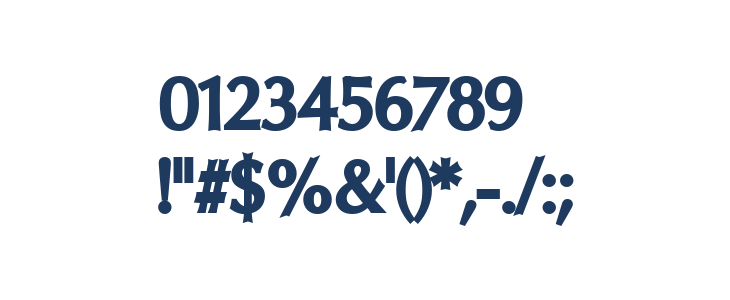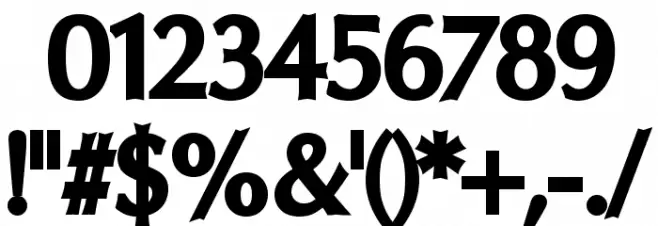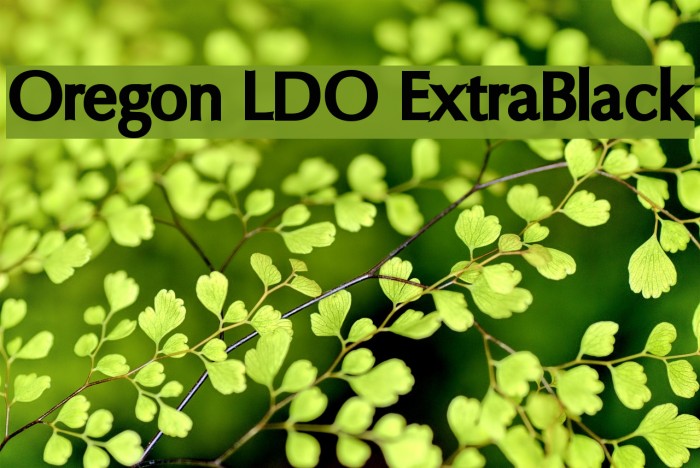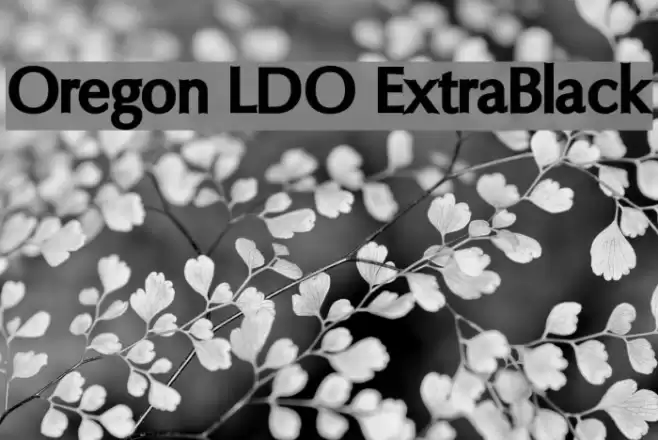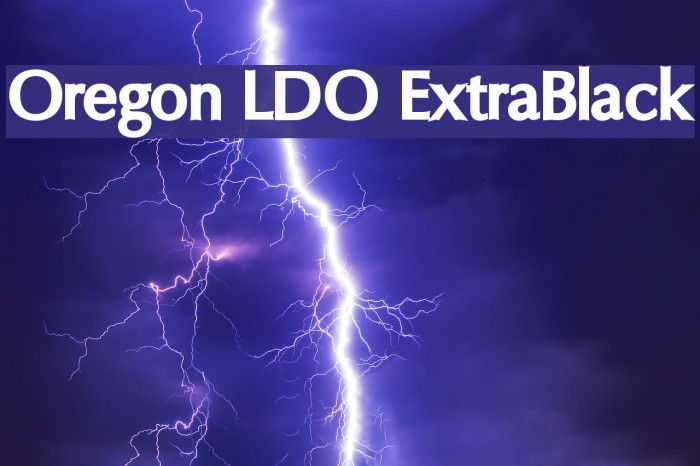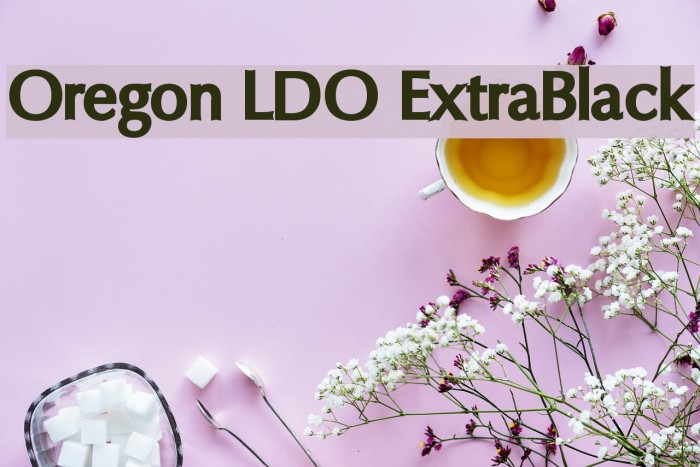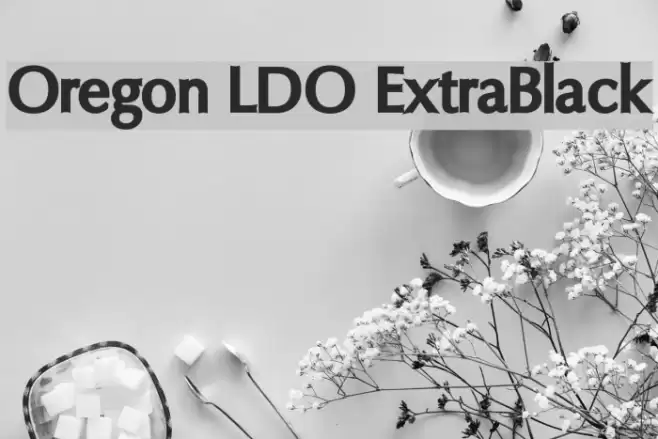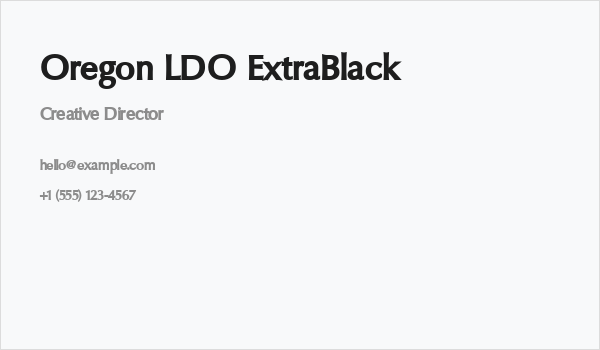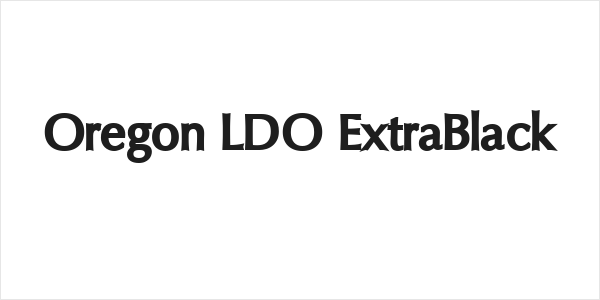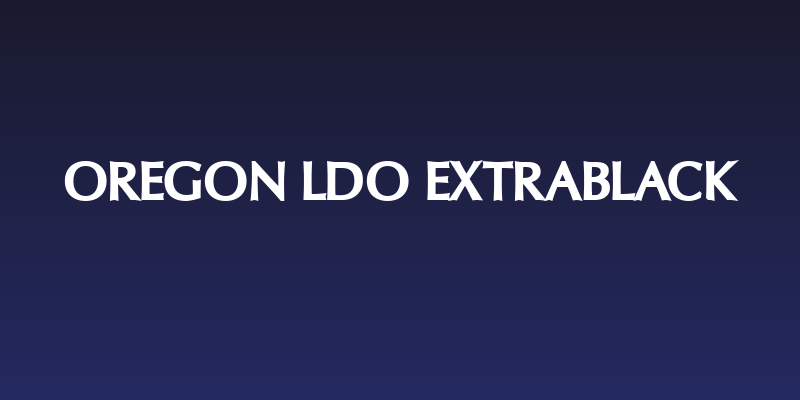
Oregon LDO ExtraBlack Font
Oregon LDO ExtraBlack Description
This font exhibits a bold and commanding presence with its thick, robust strokes and strong geometric shapes. The uppercase letters are particularly striking, with a uniform height and width that convey a sense of stability and confidence. The lowercase letters maintain this boldness while offering a slightly softer, more approachable feel. The numerals are clear and easily readable, making them suitable for a variety of applications. Special characters are crafted with the same attention to detail, ensuring consistency across all glyphs. This font's overall design is modern and impactful, making it ideal for projects that require a strong visual statement.